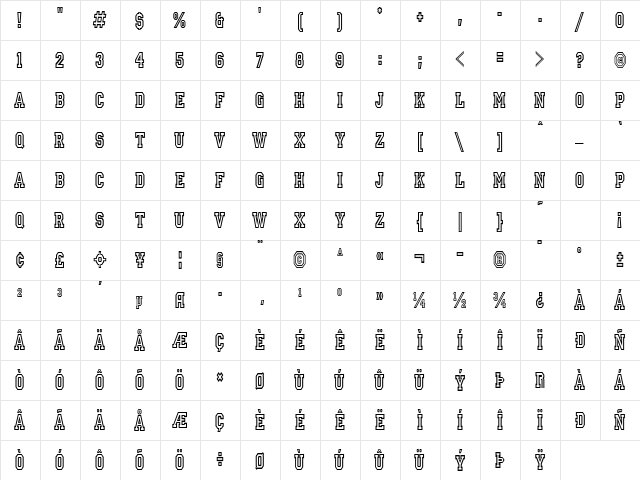
IvyLeagueCondensedOutline Regular Font Preview
IvyLeagueCondensedOutline Regular
IvyLeagueCondensedOutline Regular Font Details
Design Context for IvyLeagueCondensedOutline Typeface
IvyLeagueCondensedOutline brings ornamental detail and strong personality to headlines and identities, where visual impact matters more than quiet functionality.
Font Pairing: Pair with a clean neutral sans-serif for body copy to let IvyLeagueCondensedOutline's character lead without overwhelming the composition.
Pro Tip: Treat IvyLeagueCondensedOutline as the centrepiece of your typographic hierarchy. One strong heading set in a decorative face can carry an entire layout.